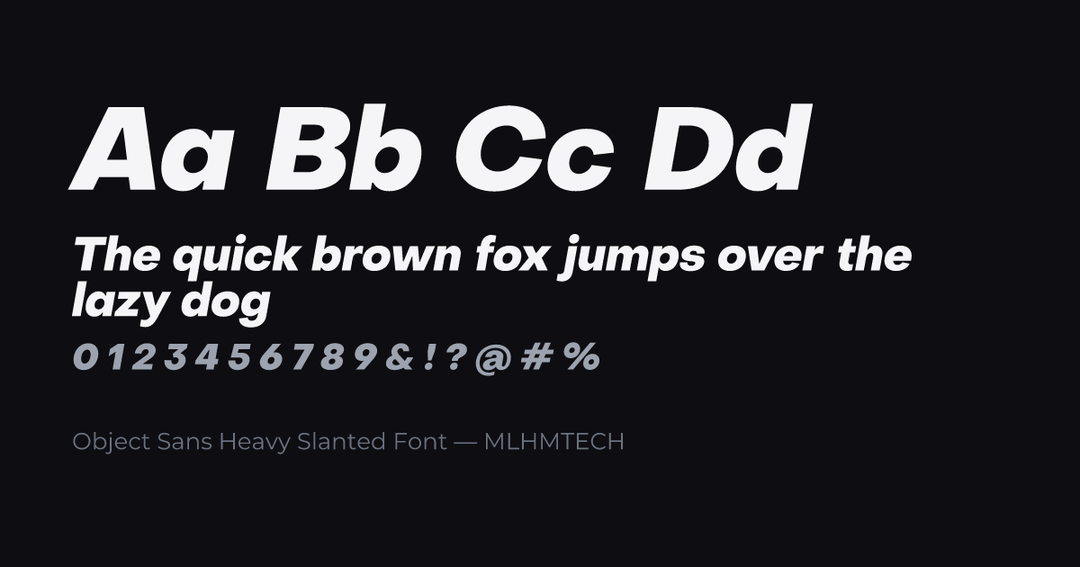
Object Sans Heavy Slanted Font
Object Sans Heavy Slanted is a bold, modern sans-serif font with a dynamic slant, ideal for impactful headlines and branding.
Object Sans Heavy Slanted is a distinctive sans-serif typeface that combines geometric structure with a dynamic slant. Its heavy weight and slanted posture give it a sense of motion and energy, making it perfect for headlines, posters, logos, and any design that needs to stand out.